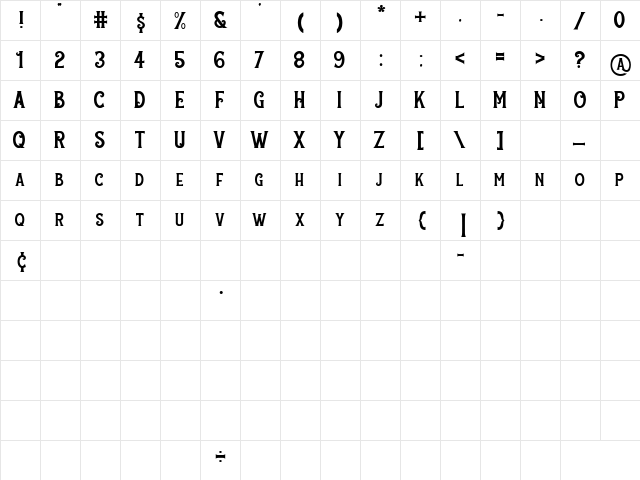
Rocket-Vintage Bold
Design Context for Rocket-Vintage Typeface
Rocket-Vintage has the warm character of retro typography — evoking diners, record sleeves, and the golden age of print advertising. Its bold stroke weight gives it real presence on the page.
Font Pairing: Combine Rocket-Vintage with a simple slab or neutral sans — period-accurate companions reinforce the vintage feel without competing for attention.
Pro Tip: Lean into Rocket-Vintage's period character by pairing it with aged paper textures, muted colour palettes, and vintage illustration styles.